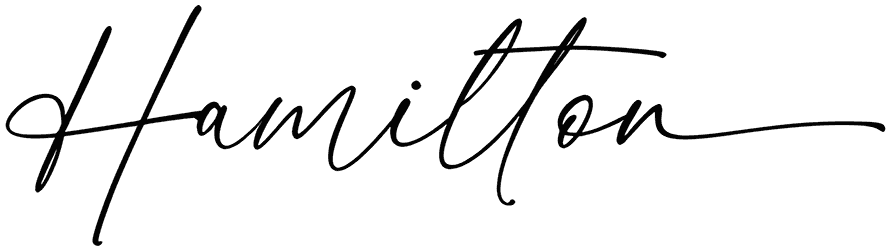
Hamilton Font
You can highlight the luxury and elegant mood of your design with a delicate signature font like this item. Hamilton font has smooth and chic characters that are going to adorn your creative business card for a manager o…
You can highlight the luxury and elegant mood of your design with a delicate signature font like this item. Hamilton font has smooth and chic characters that are going to adorn your creative business card for a manager or so on. It can also be used as an invitation font for varied informal layouts, like an invitation card for a Christmas event.